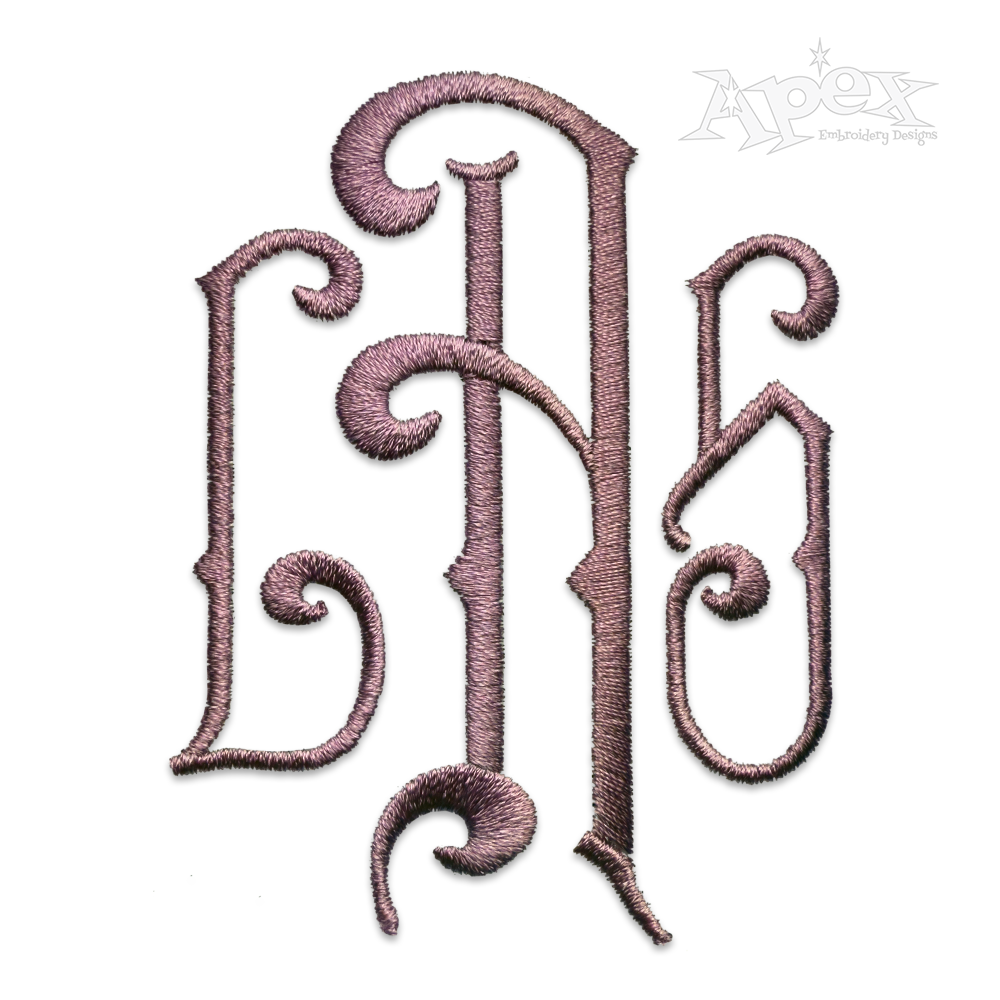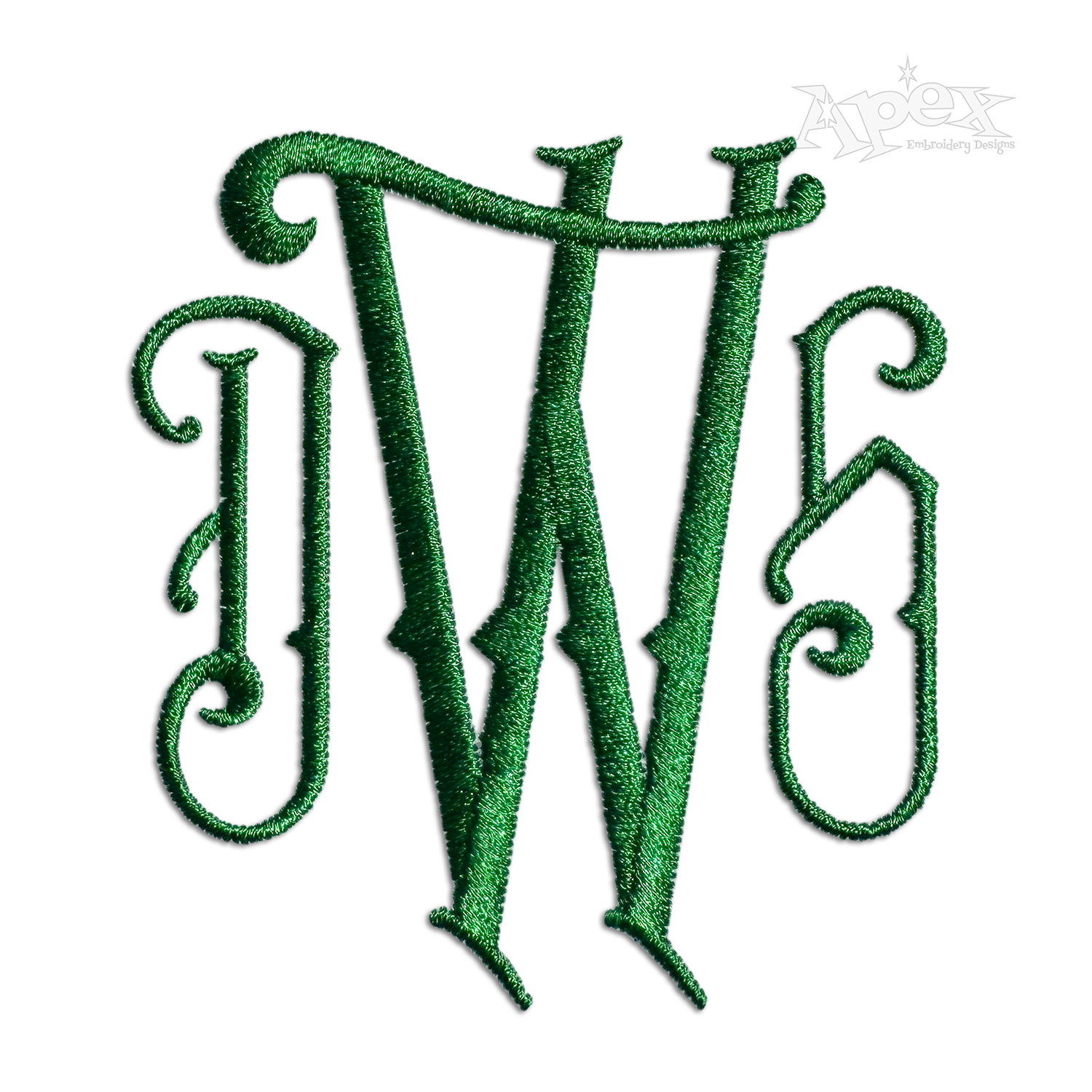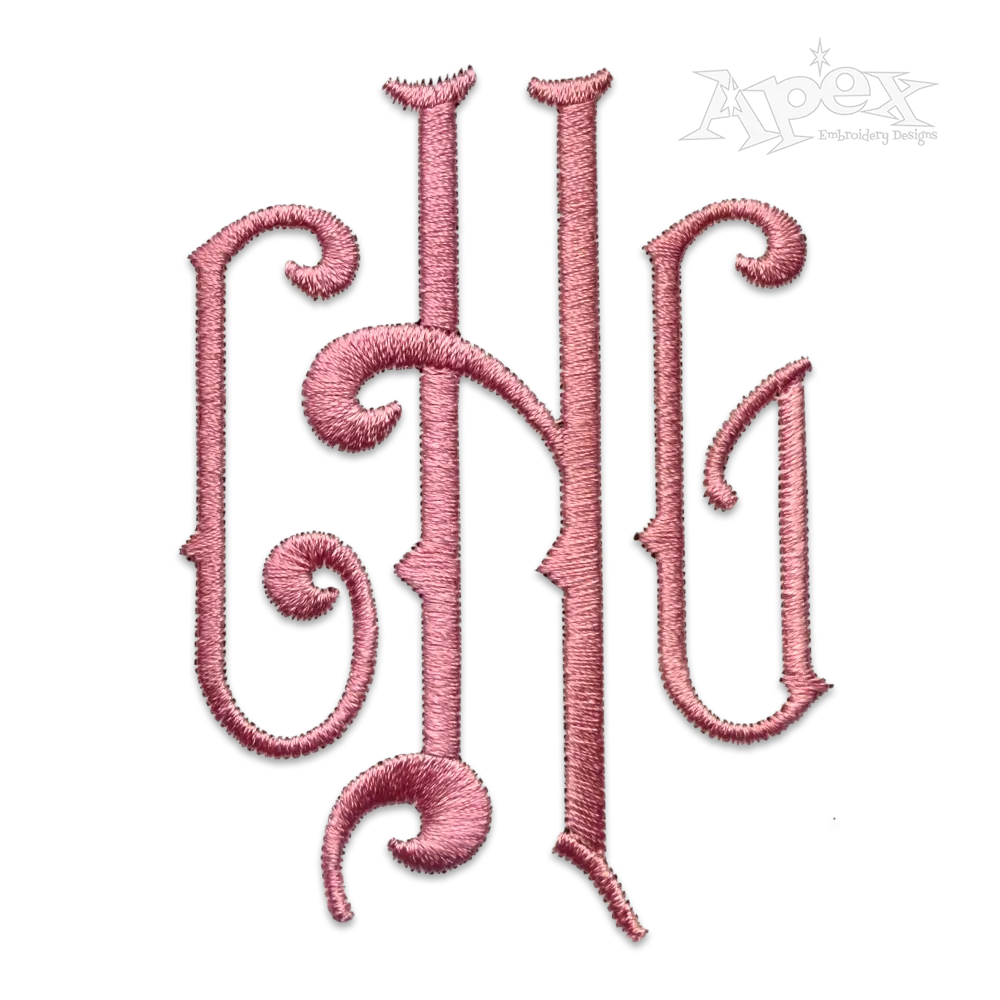
Charleston Embroidery Font
Drawing inspiration from the historic wrought-iron balconies and secret courtyard gates of the coastal South, the Charleston Embroidery Font marries old-world charm with spirited, whimsical flair. When drafting these letterforms at the digitizing table, our goal was to capture that breezy veranda elegance?allowing sculpted, curly flourishes to dance gracefully around stately vertical stems. The result is a vibrant, three-letter custom monogram alphabet that feels at once proudly heirloom and delightfully celebratory, bringing timeless personality to every stroke of the needle.
Project Ideas for Charleston Embroidery Font
The playful rhythm and vintage distinction of the Charleston alphabet make it a natural centerpiece for elevated gifting and refined home decor:
Because the Charleston letterforms feature expressive curves and looping flourishes, thoughtful placement ensures the design shines in perfect balance with your garment or textile:
Charleston Embroidery Font Craft & Letterform Details
Every swirl, loop, and tail in the Charleston alphabet was hand-digitized with meticulous attention to stitch direction and satin density. Rather than relying on automated vector conversion, we manually mapped each letterform node by node to ensure the thread glides effortlessly through every curved contour. The dynamic tapering allows thread to lay with fluid, liquid brilliance, catching ambient light across every arch and decorative serif.
Special engineering was poured into the junction points where ornate flourishes overlap with structural stems. By strategically layering underlay stitch passes and modulating stitch angles, we prevented thread buildup and puckering, ensuring the fabric rests completely flat beneath the embroidery. The finished stitchout offers a plush, tactile hand feel and sharp perimeter edges that retain their heirloom beauty through generations of laundering and gentle care.